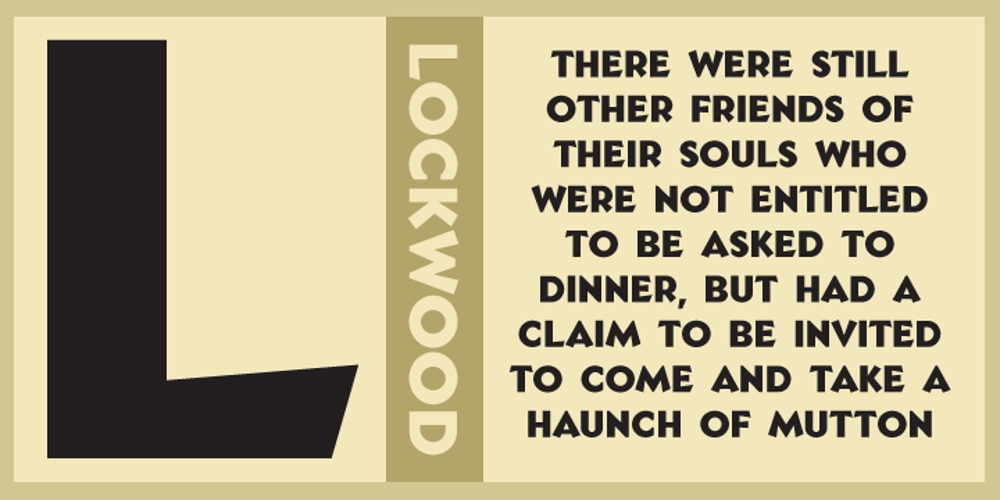
Lockwood Font Family was designed by published by Haiku Monkey. Lockwood contains 1 styles and family package options. Lockwood is an all-caps display font that scales well to all sizes. Use it liberally on your posters, headlines, and anything else that needs some character, class, and flare.